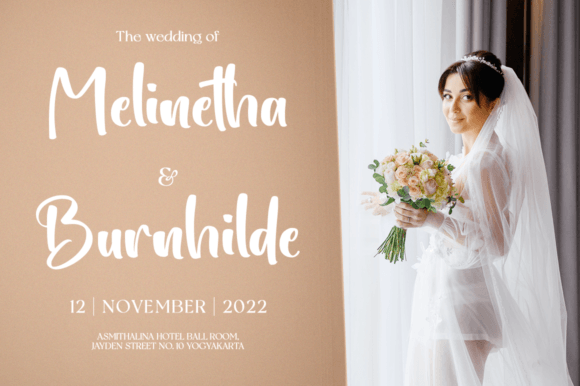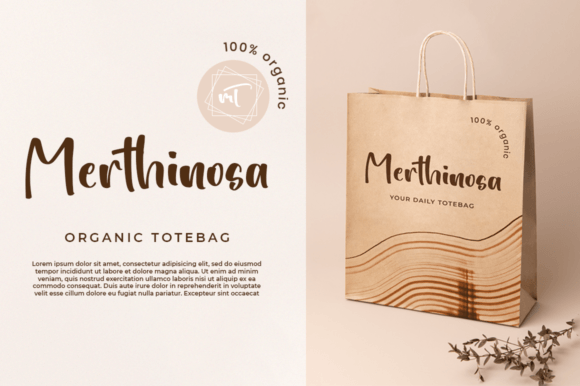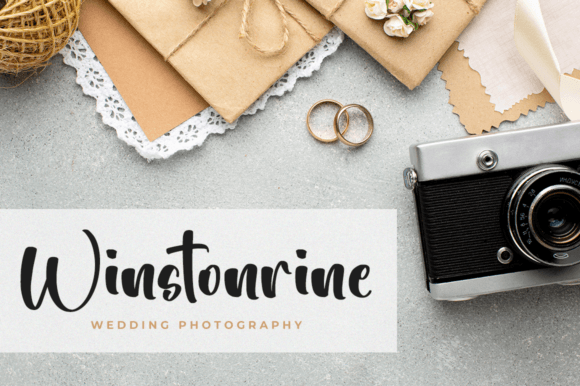
Introduction to Rohadeva Font
Rohadeva is a beautiful and delicate handwritten font with a unique feel and a stunning impact.
It will add a luxury spark to any design project that you wish to create .
Rohadeva Font offers exceptional quality and versatility, making it a valuable addition to your design toolkit. Whether you’re creating for personal projects or commercial use, Rohadeva Font delivers professional results.